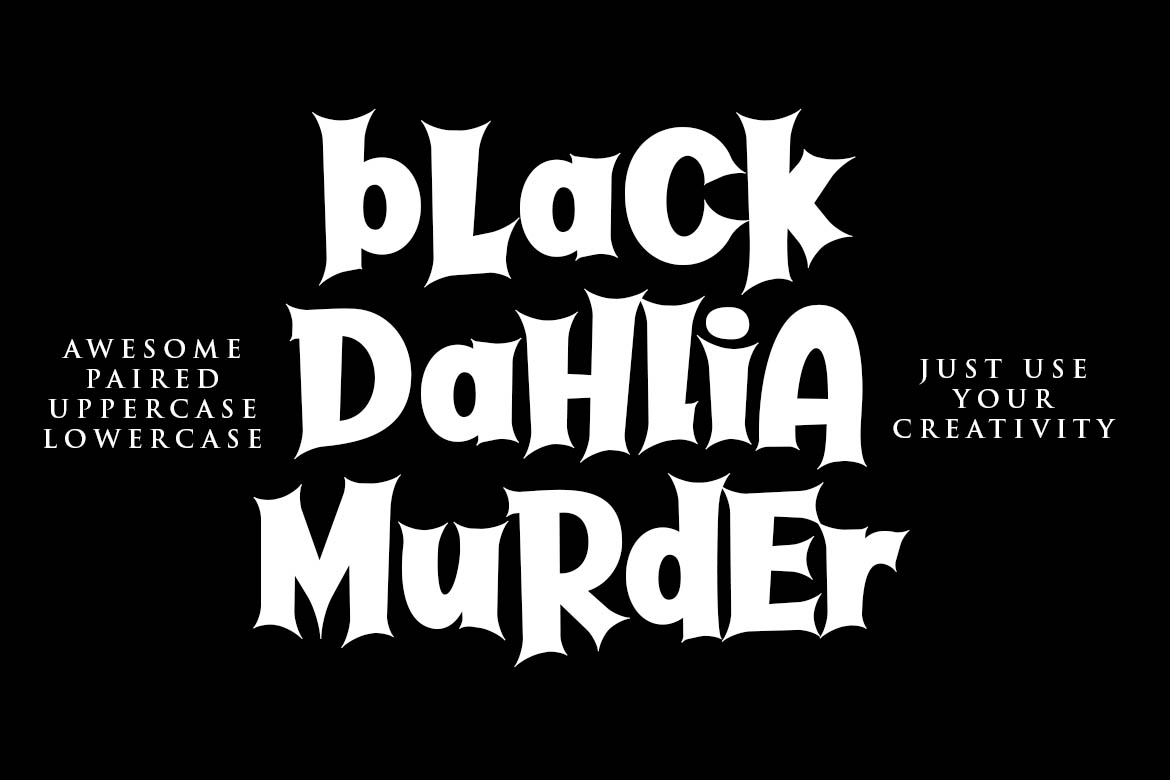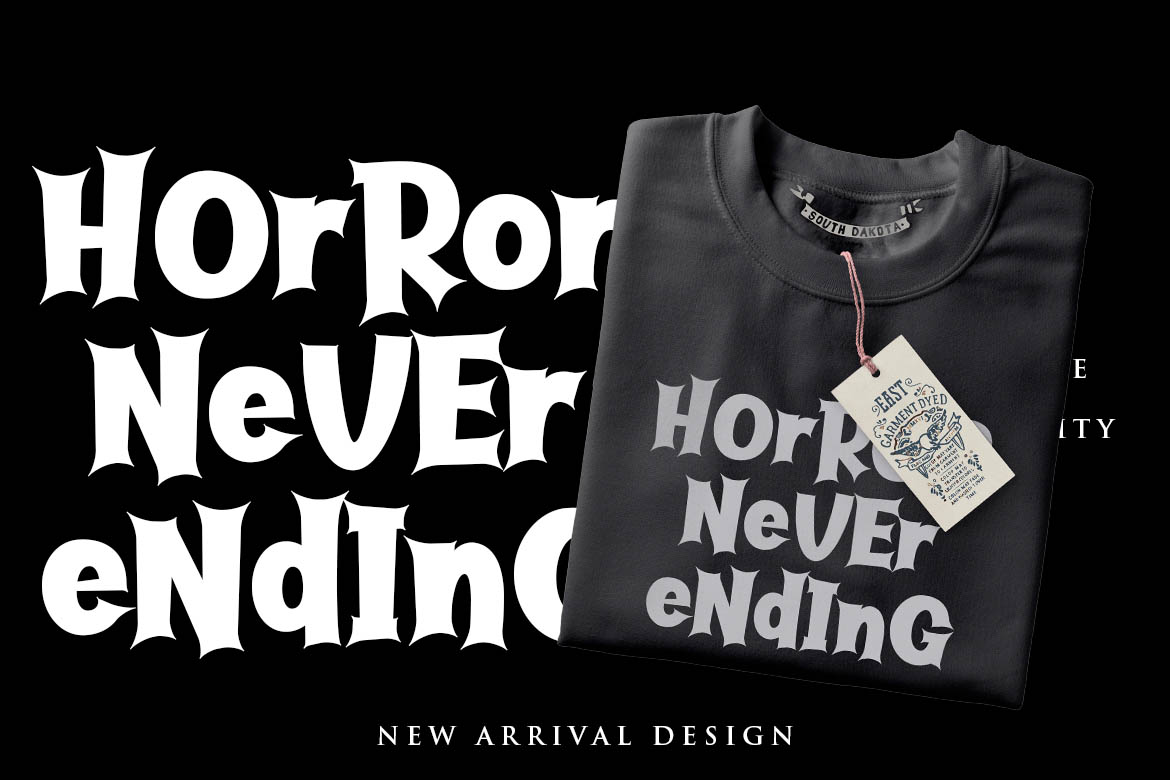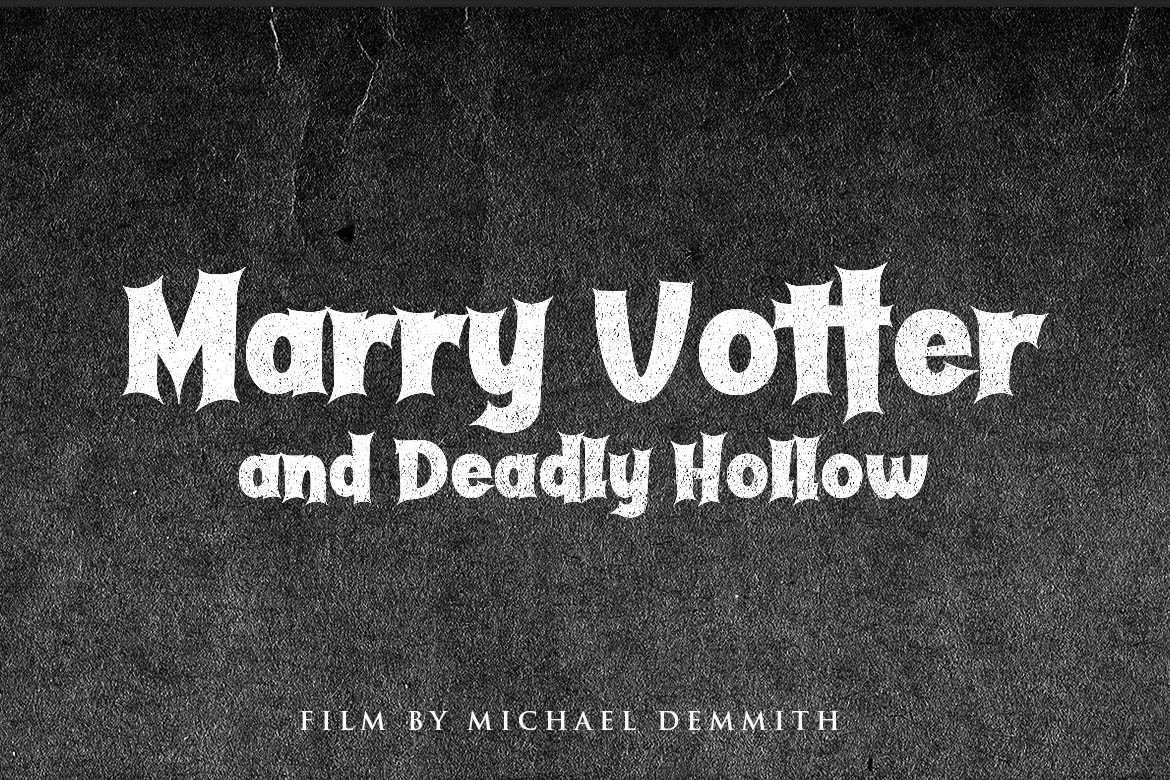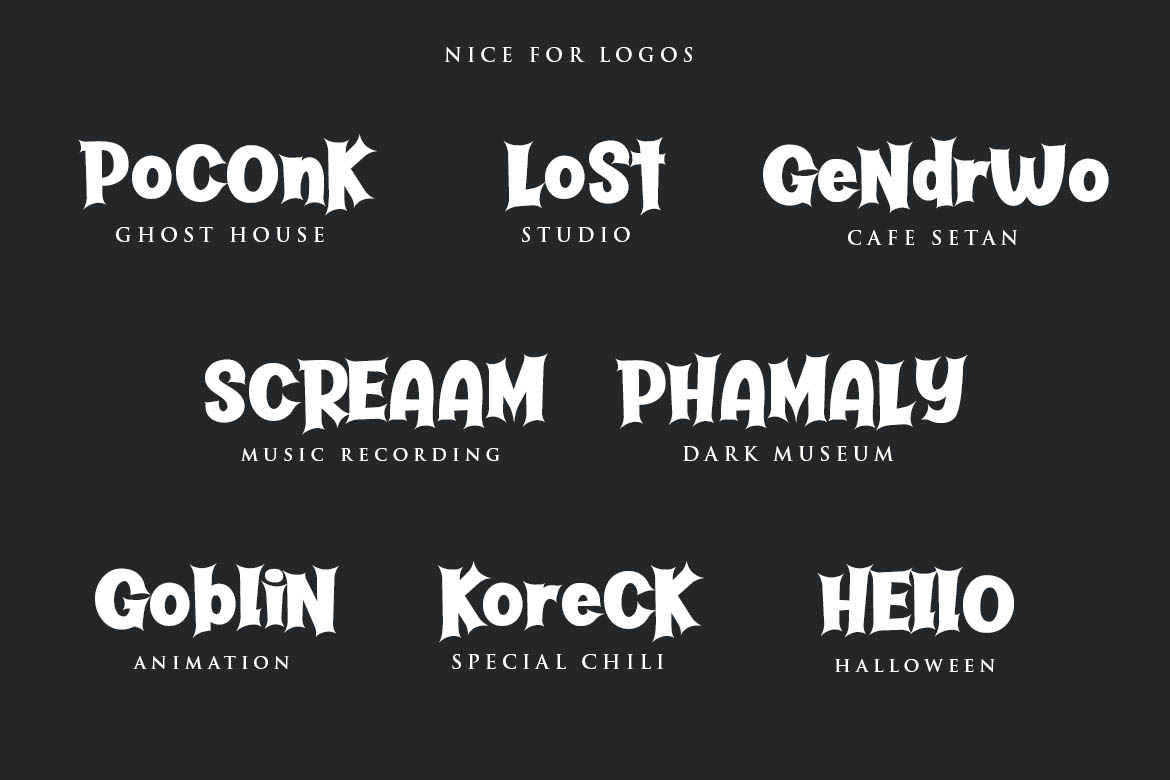
Butter Haunted Free Font
Butter Haunted Free Font is cool horror font. You can use this font for every horror moment like Halloween, Dark Clothing, Horror Movie Poster, and etc. This free typeface was designed by talented Lettersiro Studio. If you like it don’t forget to check out the full version.